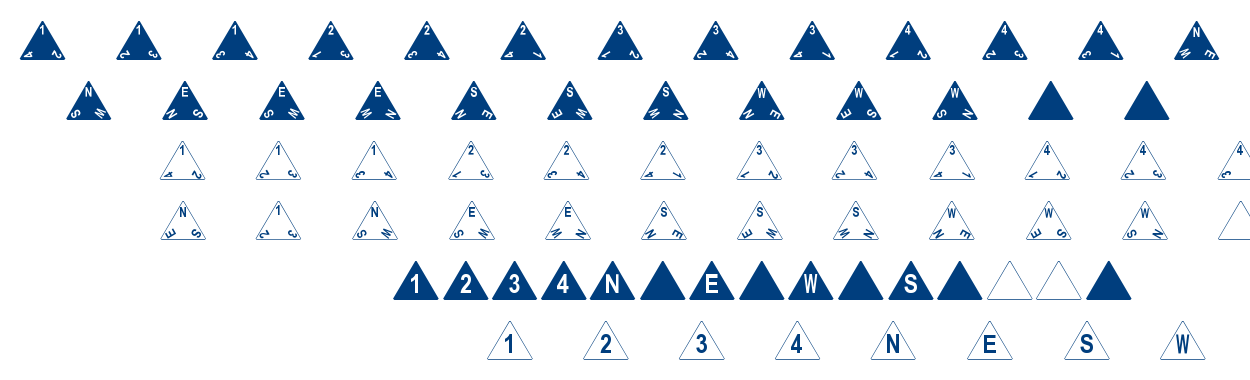
Tiny Small Medium Large Tetrahedron font Neale Davidson Website Tetrahedron.ttf Download 1146 downloads Freeware Category: Dingbats » Various TTF Tetrahedron Dingbat font Based on the d4 (four-sided dice), includes numerals, ‘full marks’, and directions. Character Map specimen sheet